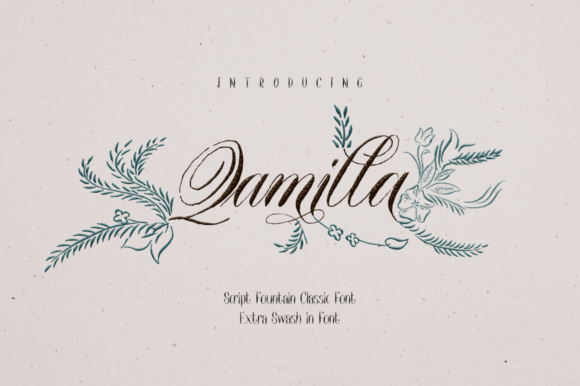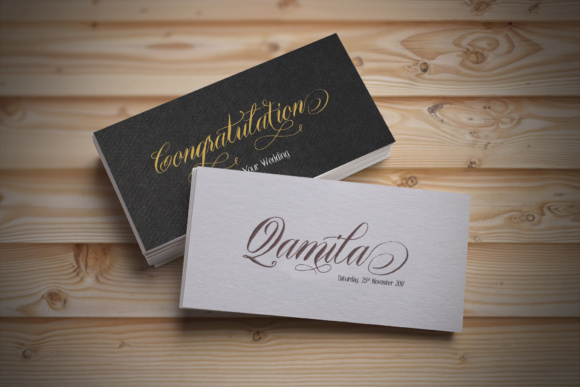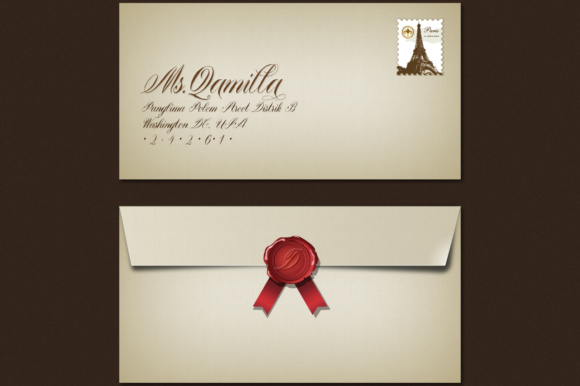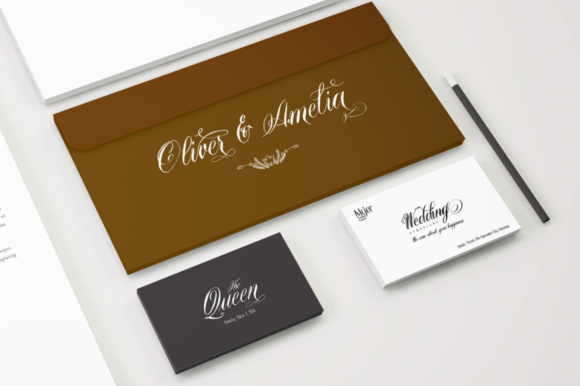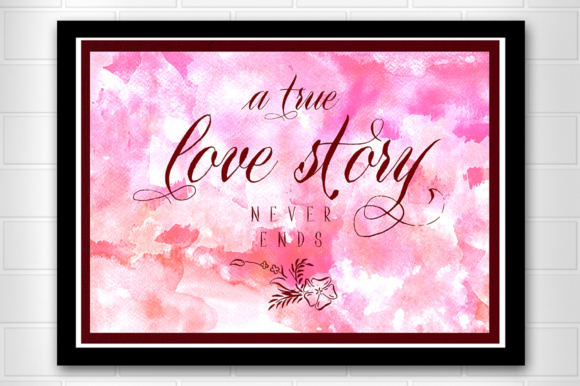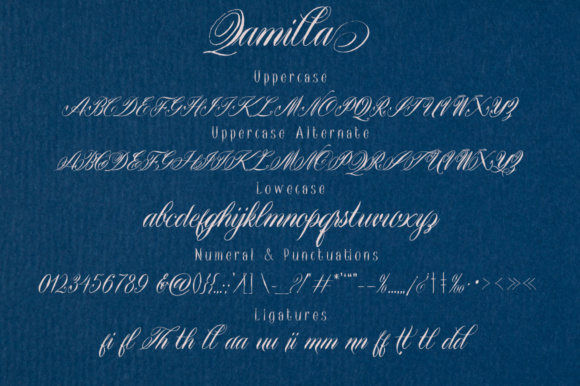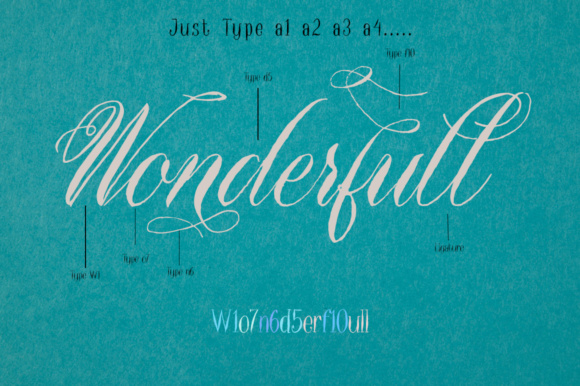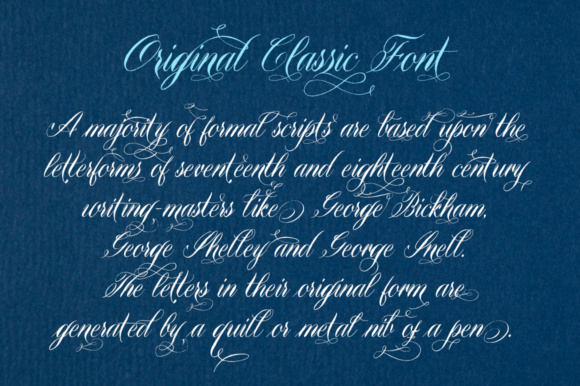
Qamilla Font
About Qamilla Font
Qamilla is the ultimate in beautiful calligraphy! This font approaches handwritten, cursive styled writing in a very traditional and beautiful way. This script is a greay way to give your designs tons of style and refined elegance.